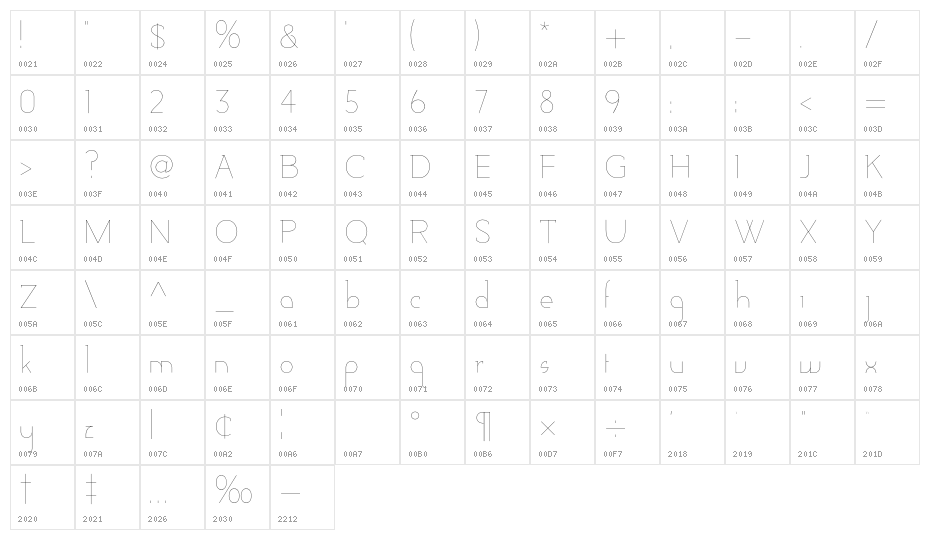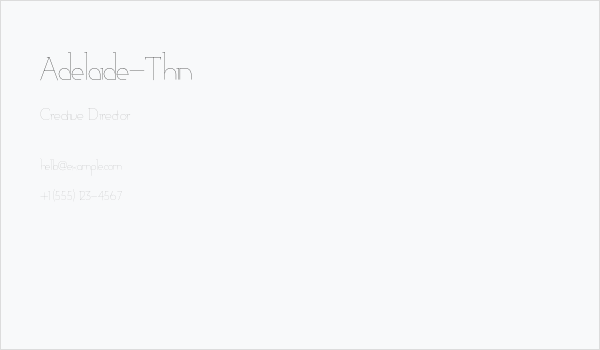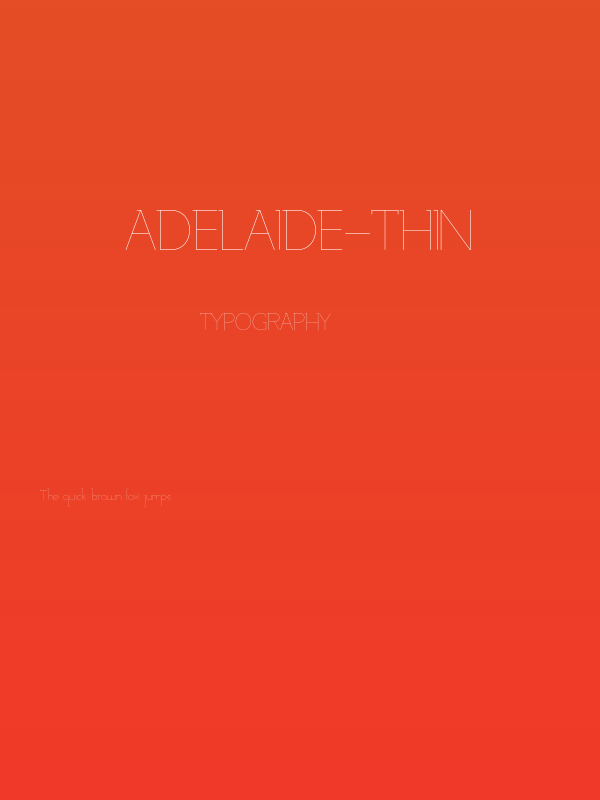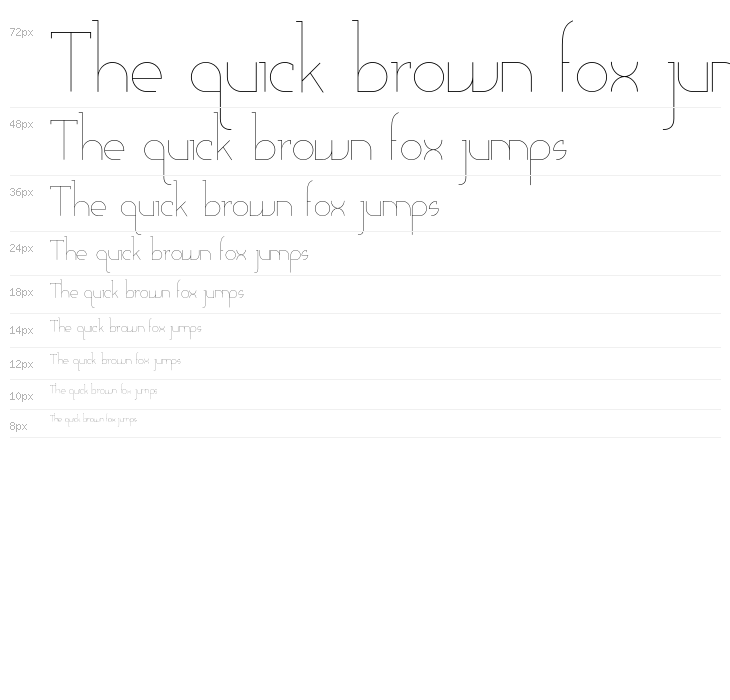
Adelaide-Thin Font
Adelaide-Thin Description
This font features a sleek and minimalist design with ultra-thin strokes that give it a modern and elegant appearance. The characters are crafted with precision, showcasing a geometric structure that emphasizes clarity and sophistication. The uppercase letters have a uniform height, while the lowercase letters maintain a consistent baseline, enhancing readability. The numerals are distinct and align perfectly with the overall style, making them suitable for various applications. Special characters are included, maintaining the font's cohesive aesthetic.
| Proposed Projects | Ideal for luxury branding, high-end fashion magazines, minimalist design projects, and modern digital interfaces. |